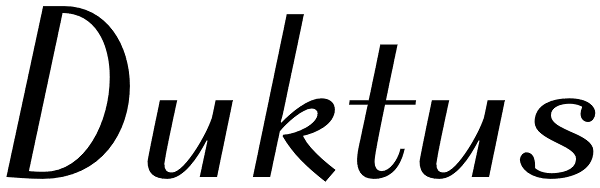
Duktus
Duktus is a script typeface with a 1940’s flavour. It is a delicate script with letters not quite connected, having large, flourished capitals and small lowercase with long ascenders and descenders. It has a crisp, precise appearance, but is not...